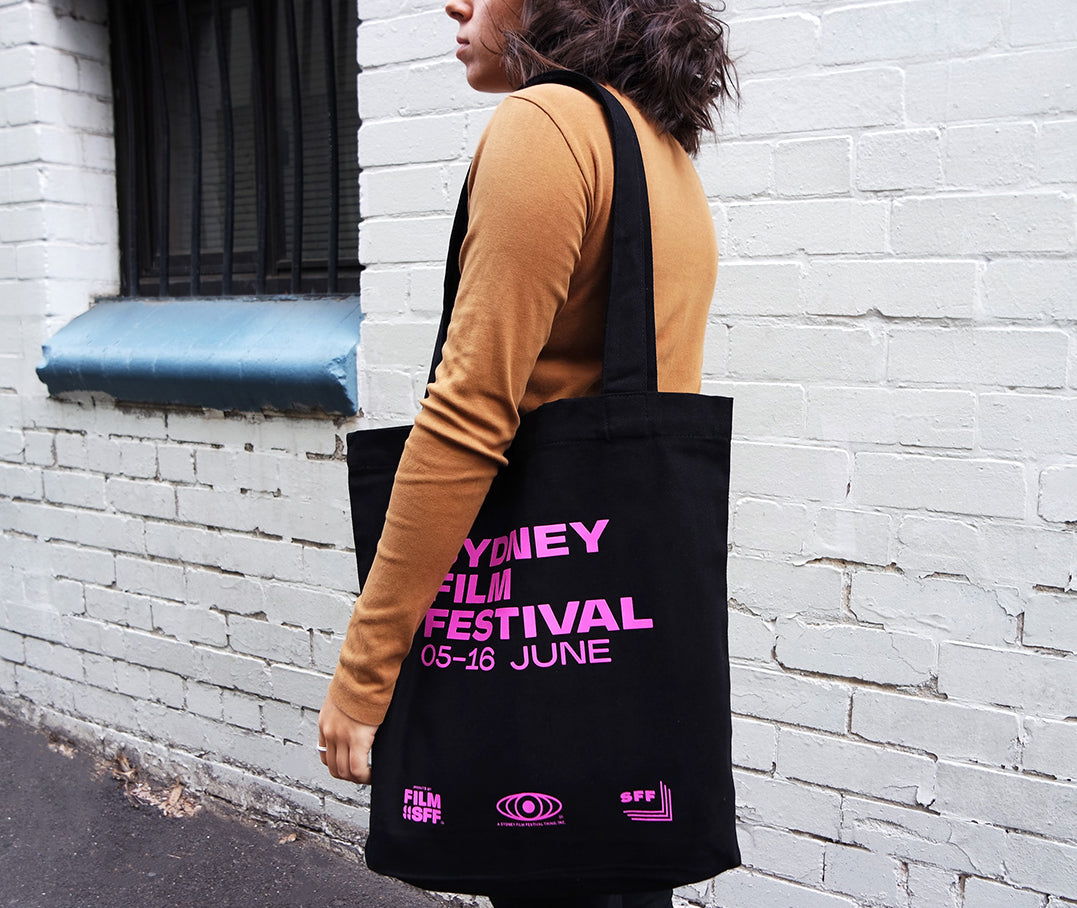
Sydney Film Festival
We needed to capture the energy that the film festival generates. That meant we needed to focus on what unites all of the festival’s audiences: the screen.
The Sydney Film Festival began as a humble affair in 1954 over the Queen’s Birthday long weekend in 1954. Today, festival attendees have access to an incredible plethora of media — publicly funded programming, Netflix, DVDs, Stan, Amazon Prime. Like film festivals globally , Sydney Film Festival is not only surviving but growing, becoming more diverse, representative of the breadth of its audience.
This presents its own challenge: How do you speak to die-hard festival goers while also introducing first-time attendees to the festival? The existing brand lacked the flexibility to express the “festival magic” attendees described, relying on shots of the audience to communicate that the festival was for a wide and varied audience, but was wary of falling into ‘in-jokes’ and niche references that would alienate first-time attendees.
We needed to capture the energy that the film festival generates. That meant we needed to focus on what unites all of the festival’s audiences: the screen. Once we focused on the screen, we grounded the brand expression in the idea of a city alive with film: if Sydney were the backdrop for the opening credits of our production, the festival, how would we do it?
The identity marries the quirks of old movie house advertising, opening credits, and intermission directives with the fanatic and energetic voice of a die-hard film festival fanatic. This allows the festival to create excitement around the festival experience itself. True to the idea of film itself, the new brand reflects the universal nature of film with the specificity and enthusiasm of a film reviewer.